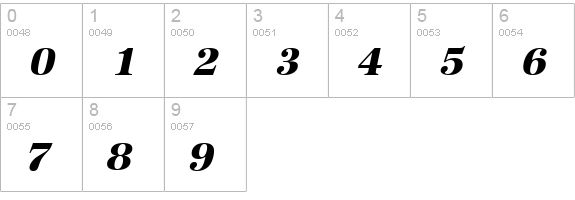
AntiquaStd-Xbold-Italic is a distinctive, italic variant in the AntiquaStd typeface family \xE2\x80\x94 well suited to design and typography projects.
The AntiquaStd-Xbold-Italic font is a bold and elegant typeface that exudes sophistication and timeless charm. Its striking italicized design adds a touch of flair and drama to any text, making it perfect for creating eye-catching headlines or adding emphasis to important information. The strong, thick strokes of the font command attention, while the graceful italicized slant adds a sense of refinement and elegance. Best of all, the AntiquaStd-Xbold-Italic font is available for free download at FontsMarket.com, allowing you to effortlessly enhance your designs with this exquisite typeface. Whether you're working on a professional project or a personal creative endeavor, this font is sure to make a bold statement and leave a lasting impression. Don't miss out on the opportunity to elevate your typography with the striking AntiquaStd-Xbold-Italic font - download it today and let your creativity soar!